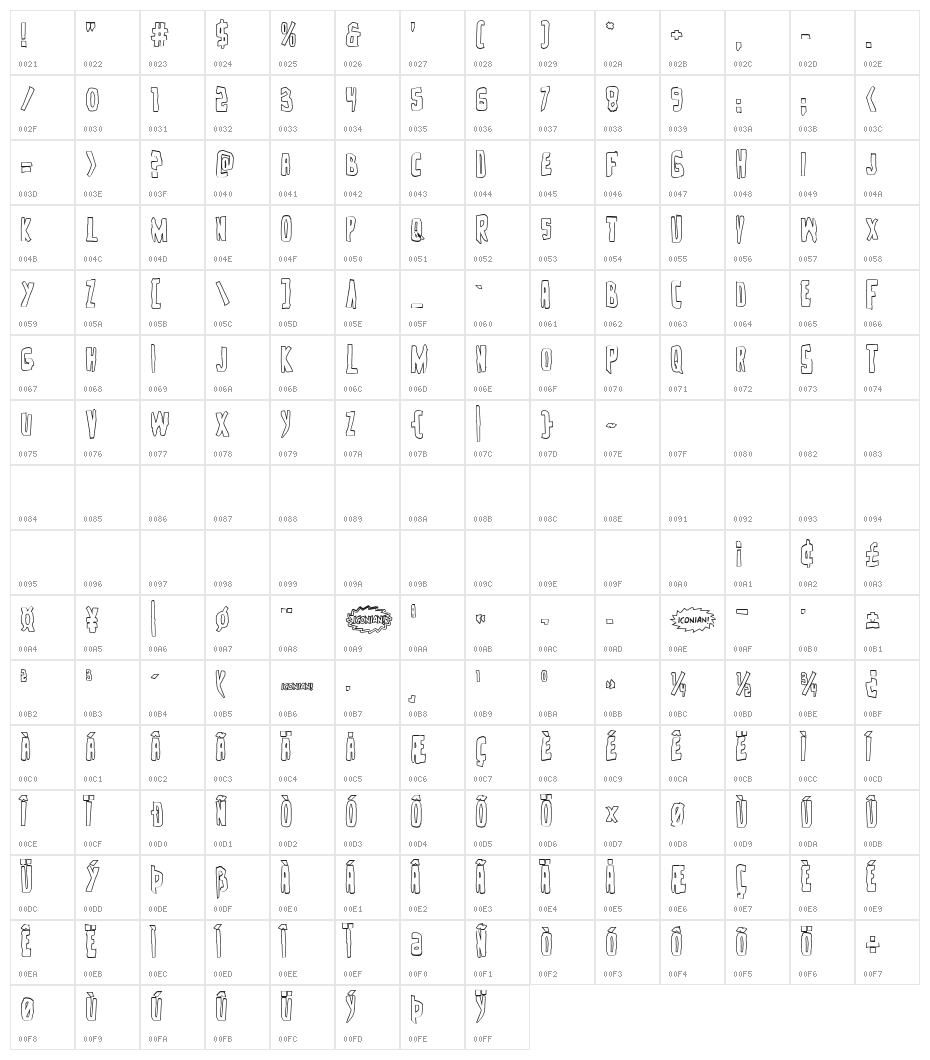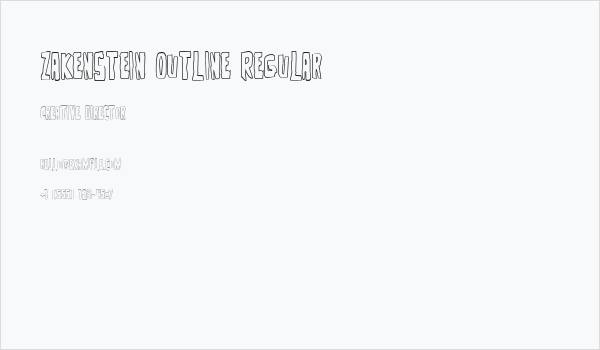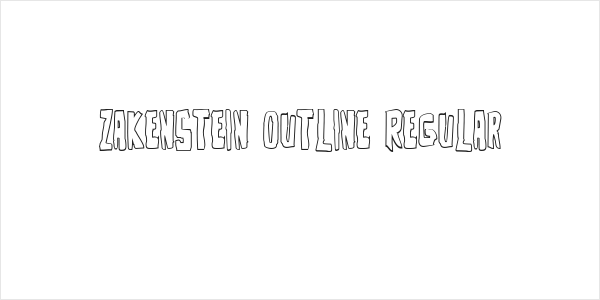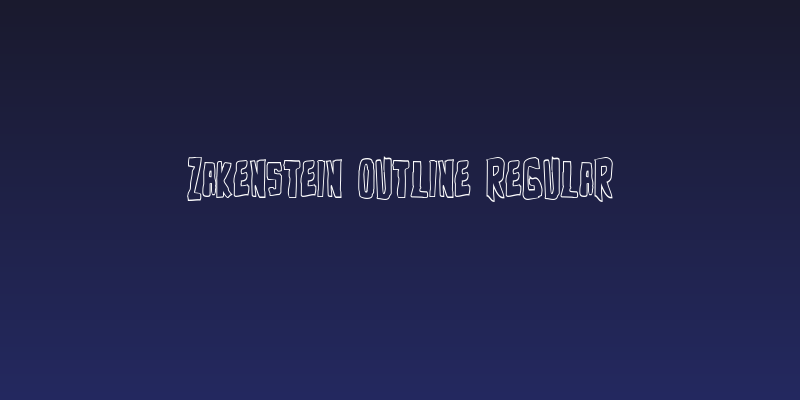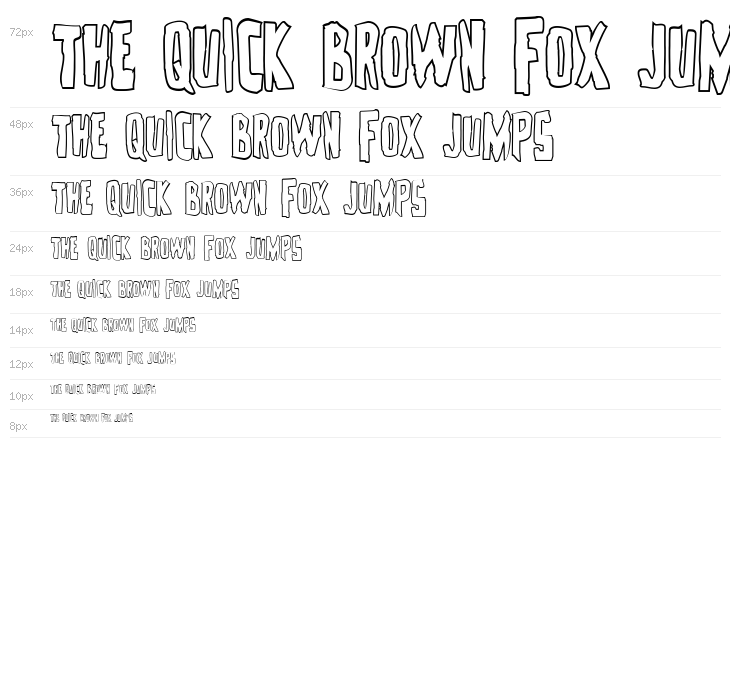
Zakenstein Outline Regular Font
Zakenstein Outline Regular Description
This font features a bold, outlined style with a slightly irregular and jagged appearance, giving it a hand-drawn, edgy look. The uppercase and lowercase letters maintain a consistent height, while the numbers and special characters follow the same design principles. The strokes are thick and uniform, with a playful yet slightly chaotic vibe. This font is ideal for projects that require a unique and eye-catching display typeface, such as posters, album covers, or themed event invitations. Its distinctive outline style makes it stand out in any design context.
| Proposed Projects | Posters, album covers, themed event invitations, eye-catching headlines. |